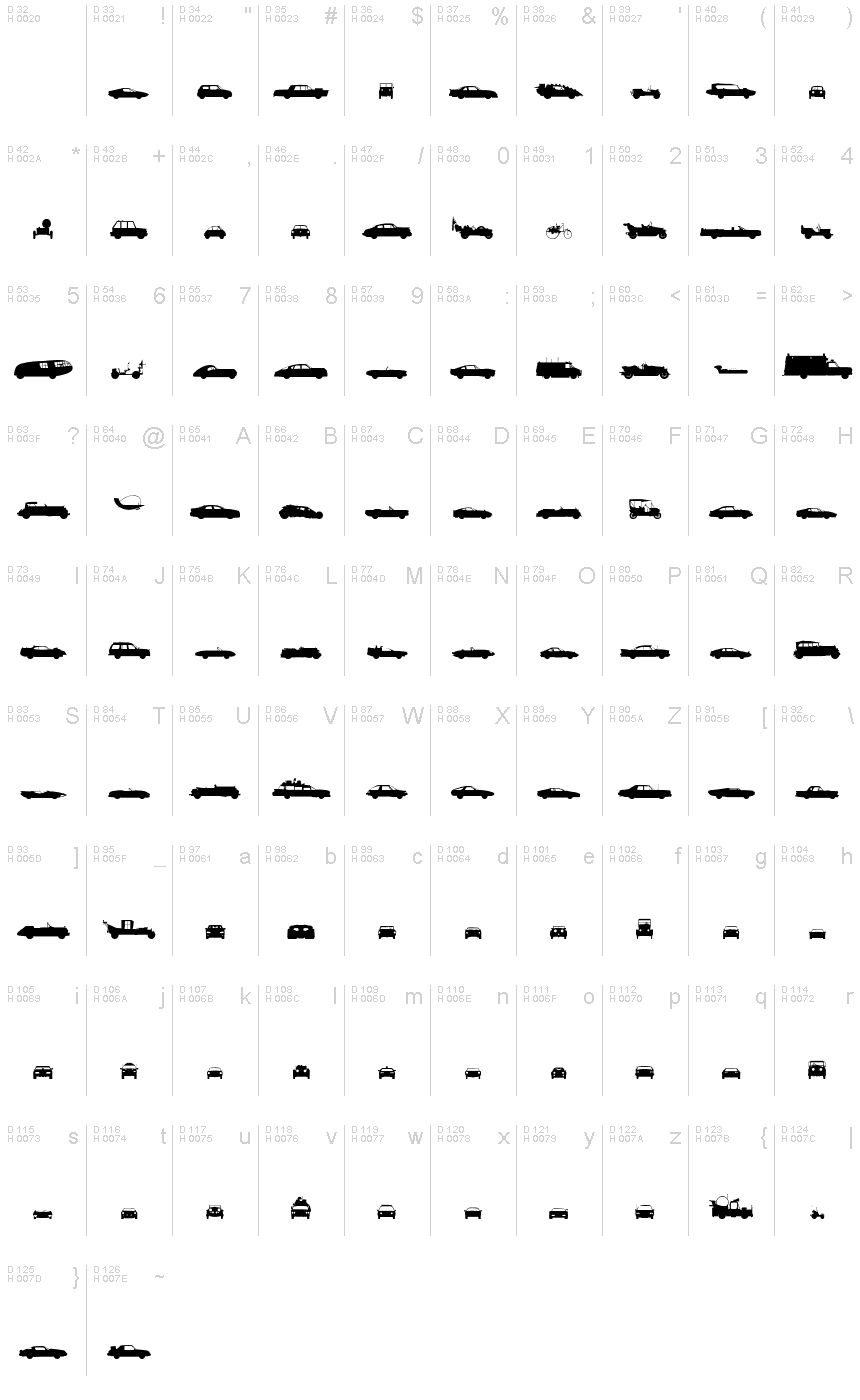
Motor Vehicles
Motor Vehicles font is a set of car dingbats designed by Ric Stephens.
More than 200 historic and fictional motor vehicle icons are all close to the same scale.